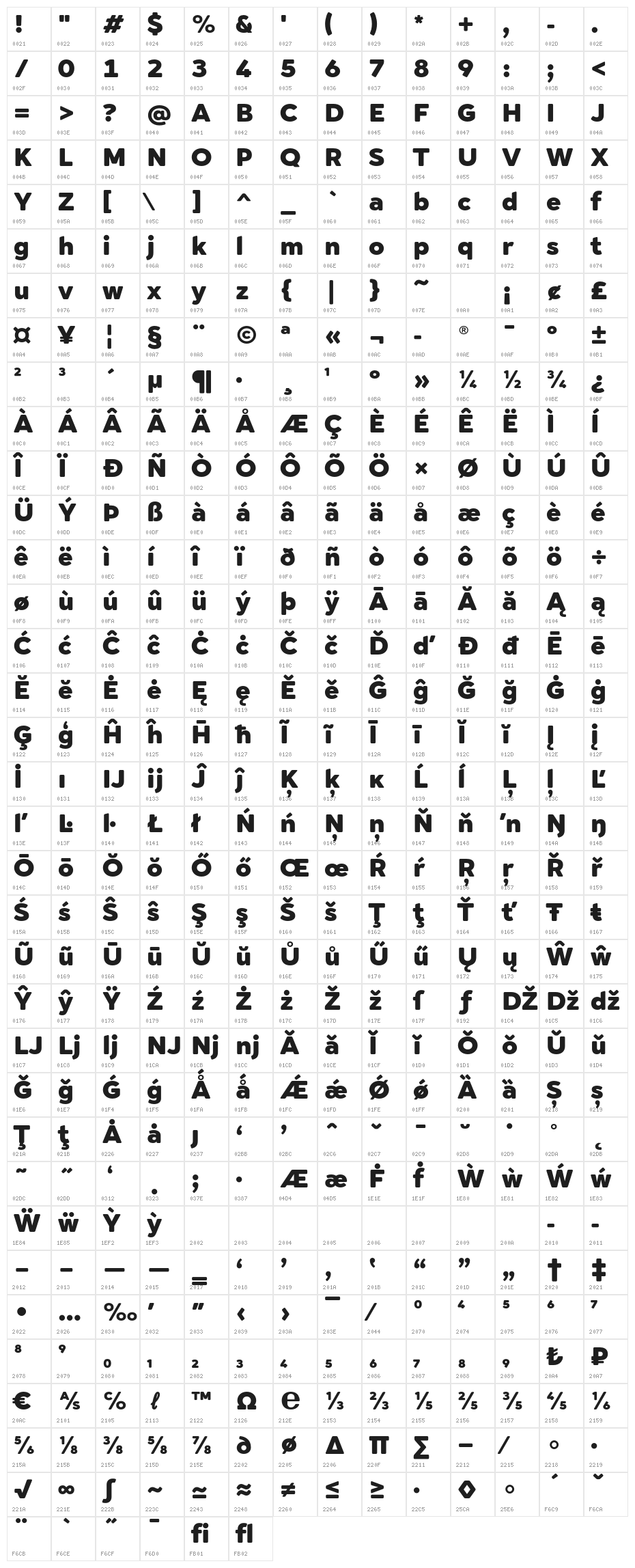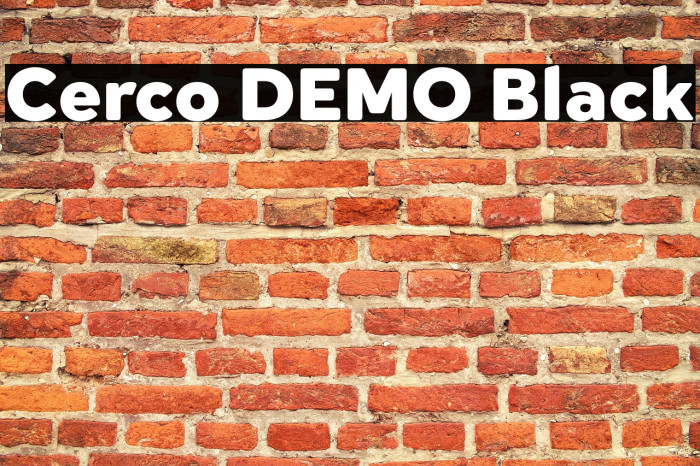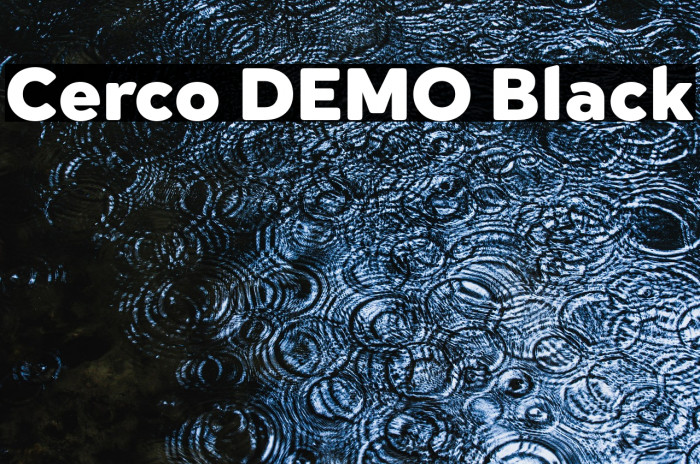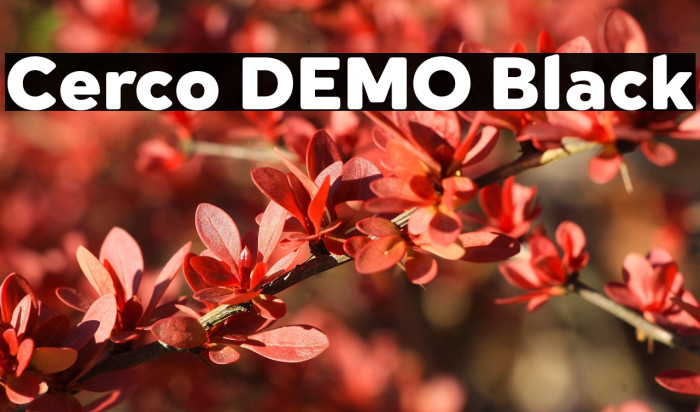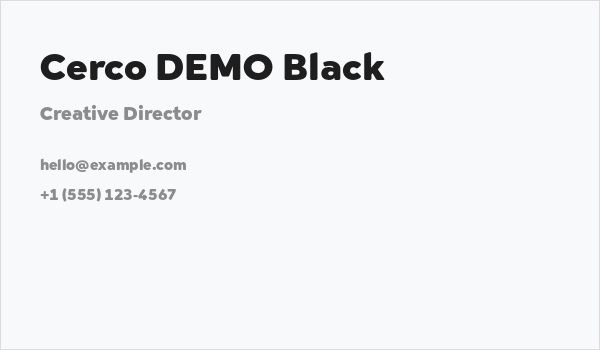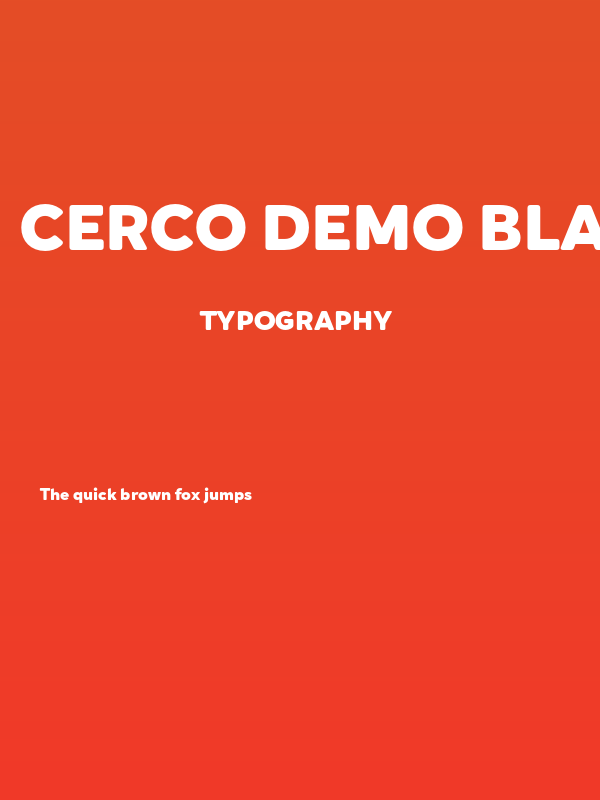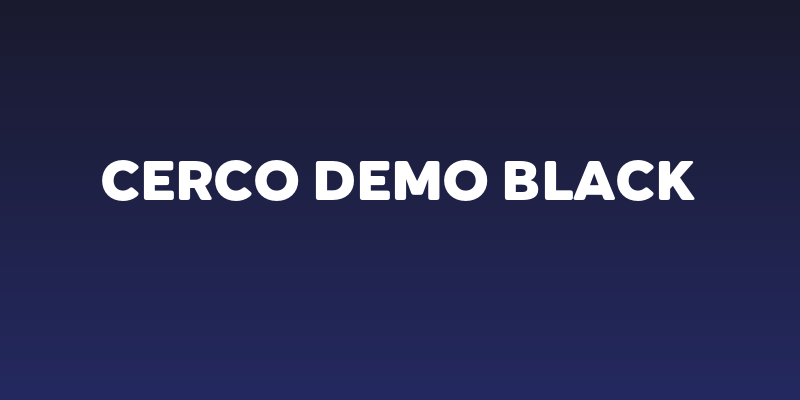
Cerco DEMO Black Font
Cerco DEMO Black Description
This font features bold, rounded characters with a modern and clean appearance. The uppercase and lowercase letters are well-proportioned, offering a sense of balance and harmony. The numerals are clear and distinct, making them easily readable. Special characters are designed with the same boldness, ensuring consistency across all glyphs. The overall style is approachable and friendly, suitable for a variety of design applications. Its strong presence makes it ideal for attention-grabbing headlines or branding materials.
| Proposed Projects | Ideal for branding, headlines, posters, and digital media where a strong, friendly presence is desired. |